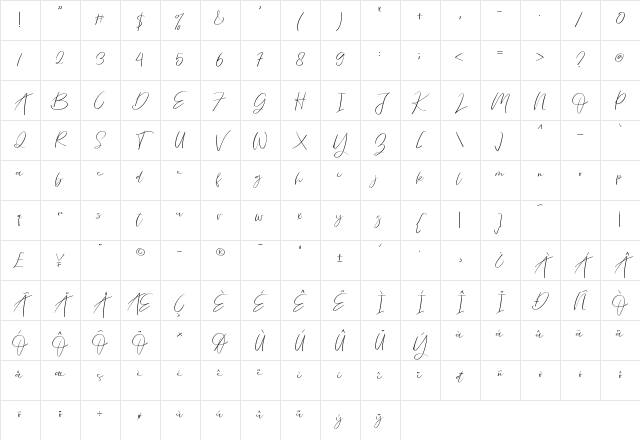
La Vista Regular Free Font
La Vista Regular
Designer: AminMario 2019
Design Context for La Vista
La Vista is a composed and adaptable typeface that performs quietly and consistently across a wide range of design contexts.